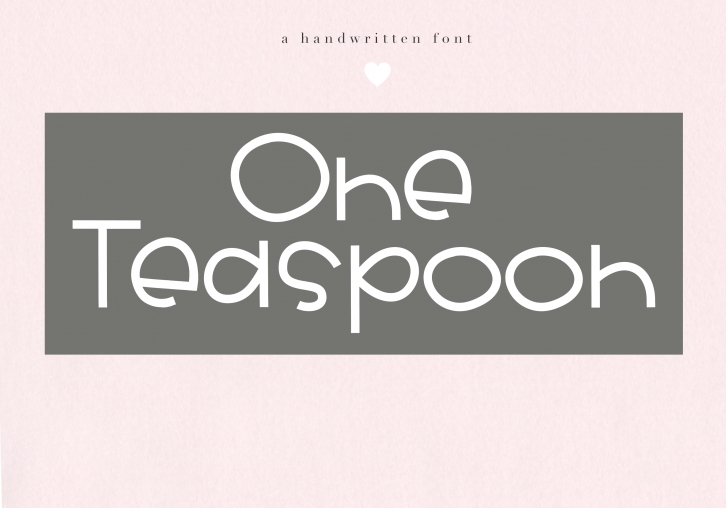
One Teaspoon is a trendy and unique font with an authentic style. It was designed by KA Designs and it's a great choice for creative people who need such a font. It was released on March 9, 2018 and the file size is 14.30 MB. One Teaspoon will add an organic vibe to any design idea!